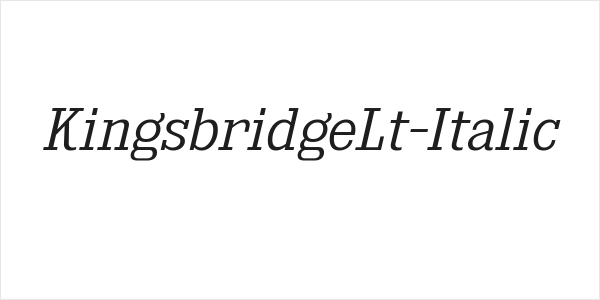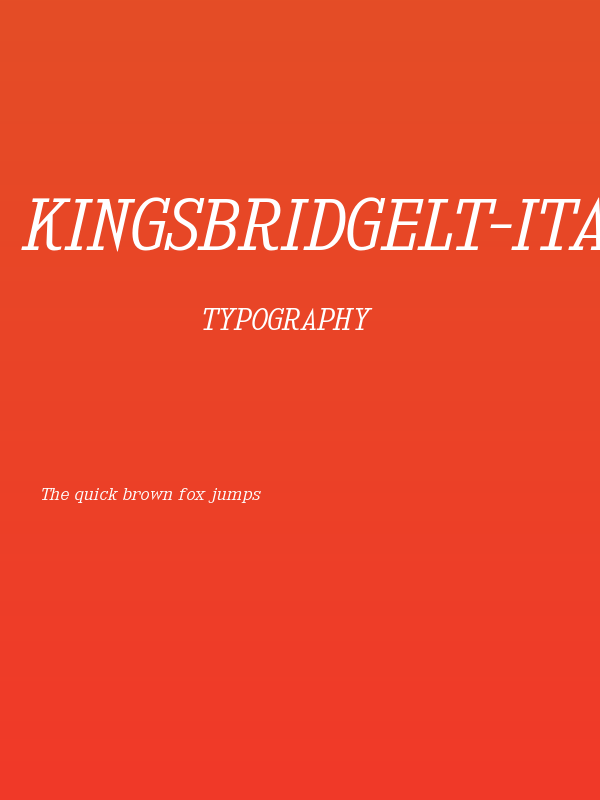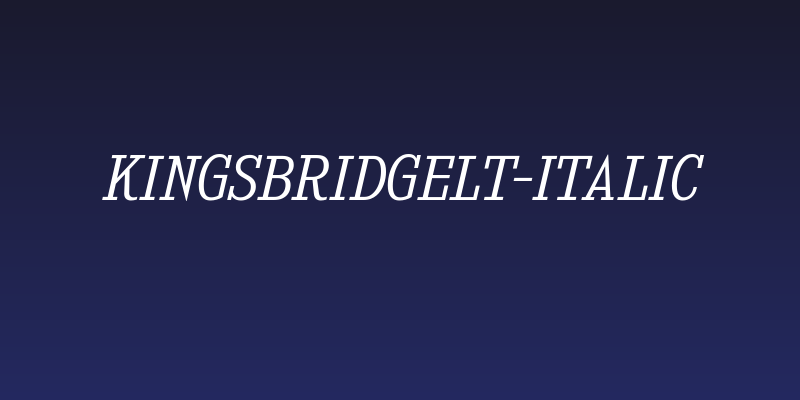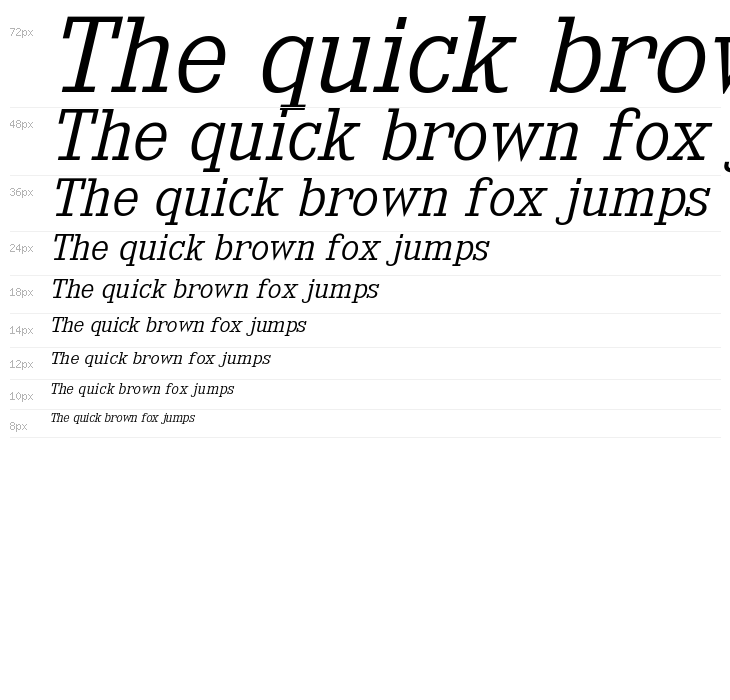
KingsbridgeLt-Italic Font
KingsbridgeLt-Italic Description
This font features an elegant and sophisticated italic style, characterized by its smooth, flowing lines and slight slant to the right. The letterforms are well-proportioned, with a moderate contrast between thick and thin strokes, giving it a refined and classic appearance. The uppercase letters are tall and commanding, while the lowercase letters maintain a harmonious balance, making it suitable for both display and text purposes. The numerals are clear and legible, and the special characters are thoughtfully designed to complement the overall aesthetic. This font exudes a timeless charm, making it versatile for various design applications.
| Proposed Projects | Ideal for use in editorial design, luxury branding, wedding invitations, and elegant packaging. |